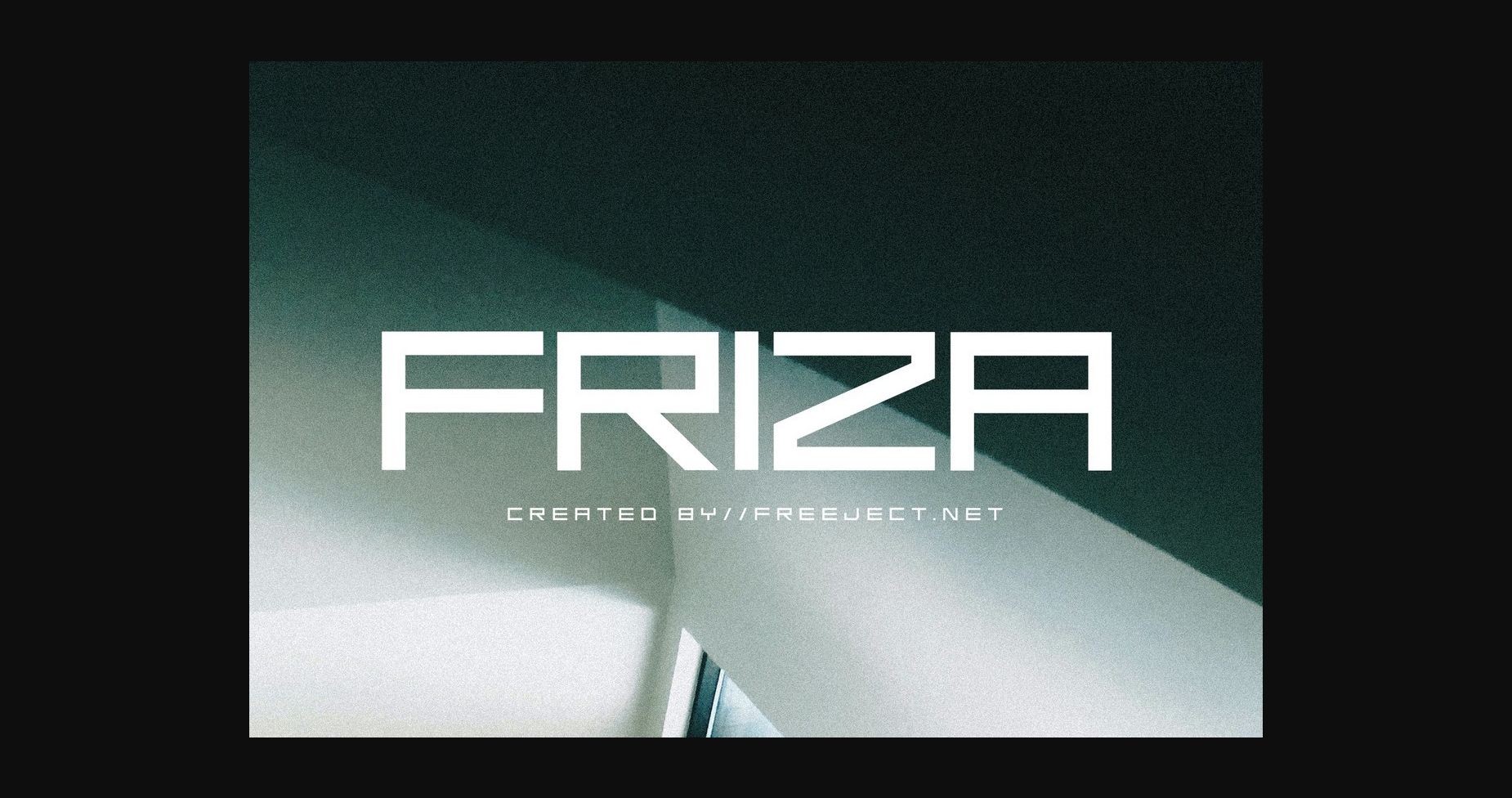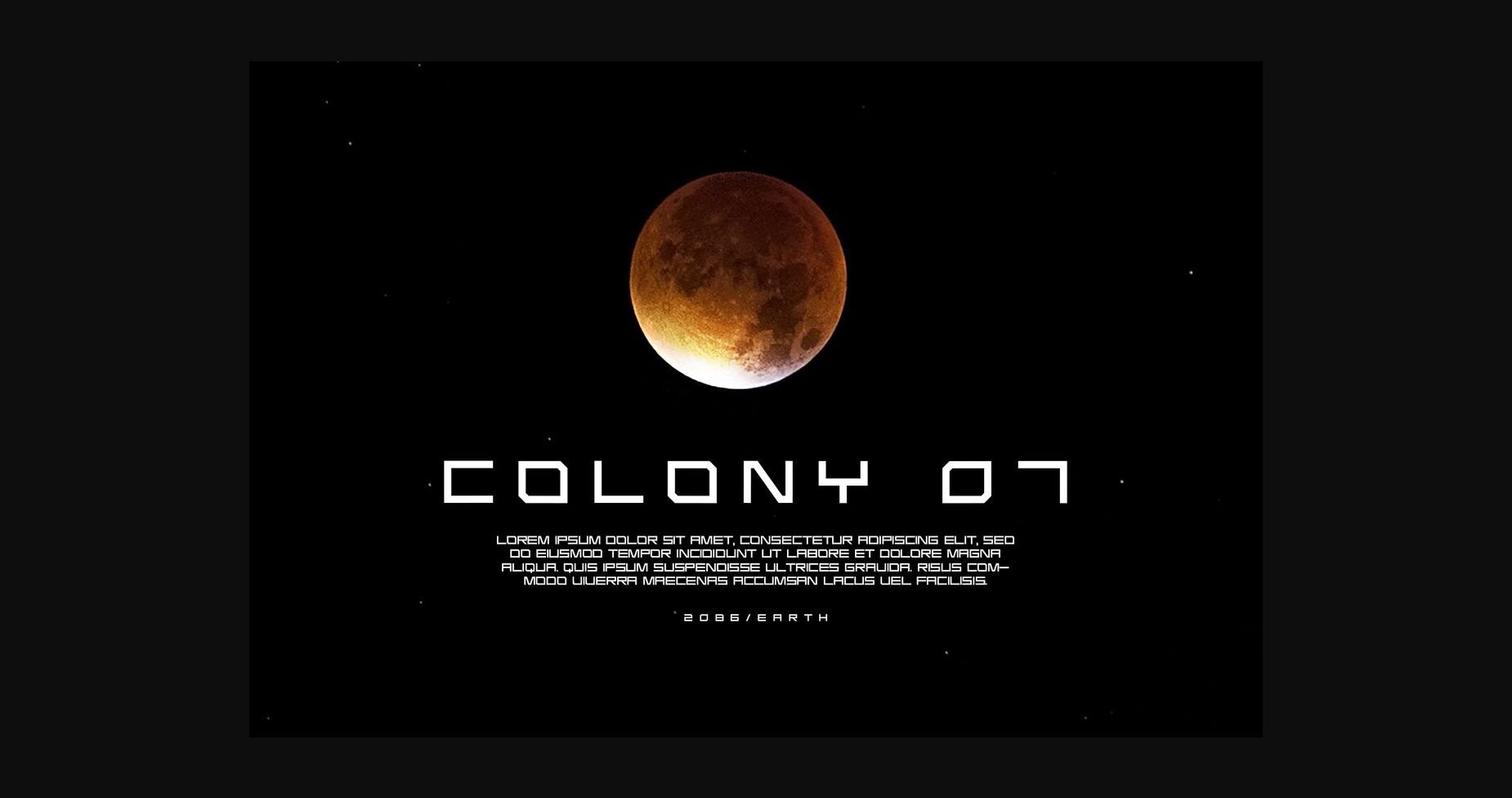
About Friza Font
Friza is a rigid and futuristic sans serif font with square corners and an overall geometric look. It has strong characters and a firm, powerful impression that can elevate the appearance of any creative project!